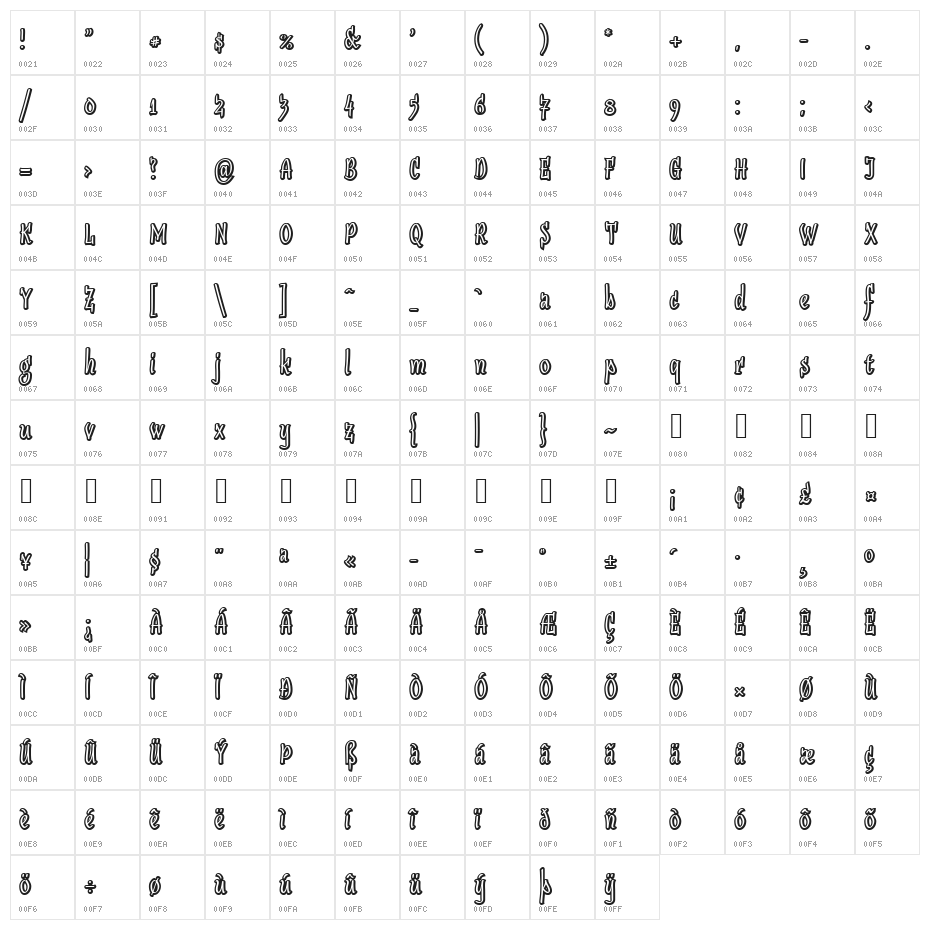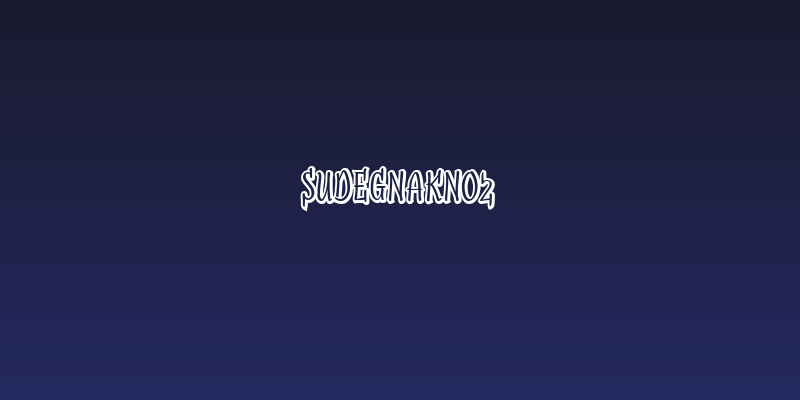
SudegnakNo2 Font
SudegnakNo2 Description
This font features a bold, playful style with a distinct outline that gives it a three-dimensional appearance. The uppercase letters are tall and slightly narrow, while the lowercase letters maintain a consistent height, adding to the font's cohesive look. The numbers and special characters are designed to match the whimsical style of the letters, making them stand out. The font's unique character is further emphasized by its decorative elements, which add a touch of fun and creativity. It's ideal for projects that require a lively and engaging visual impact.
| Overall Style | Playful, Decorative |
| Proposed Projects | Ideal for children's books, playful branding, posters, and creative invitations. |